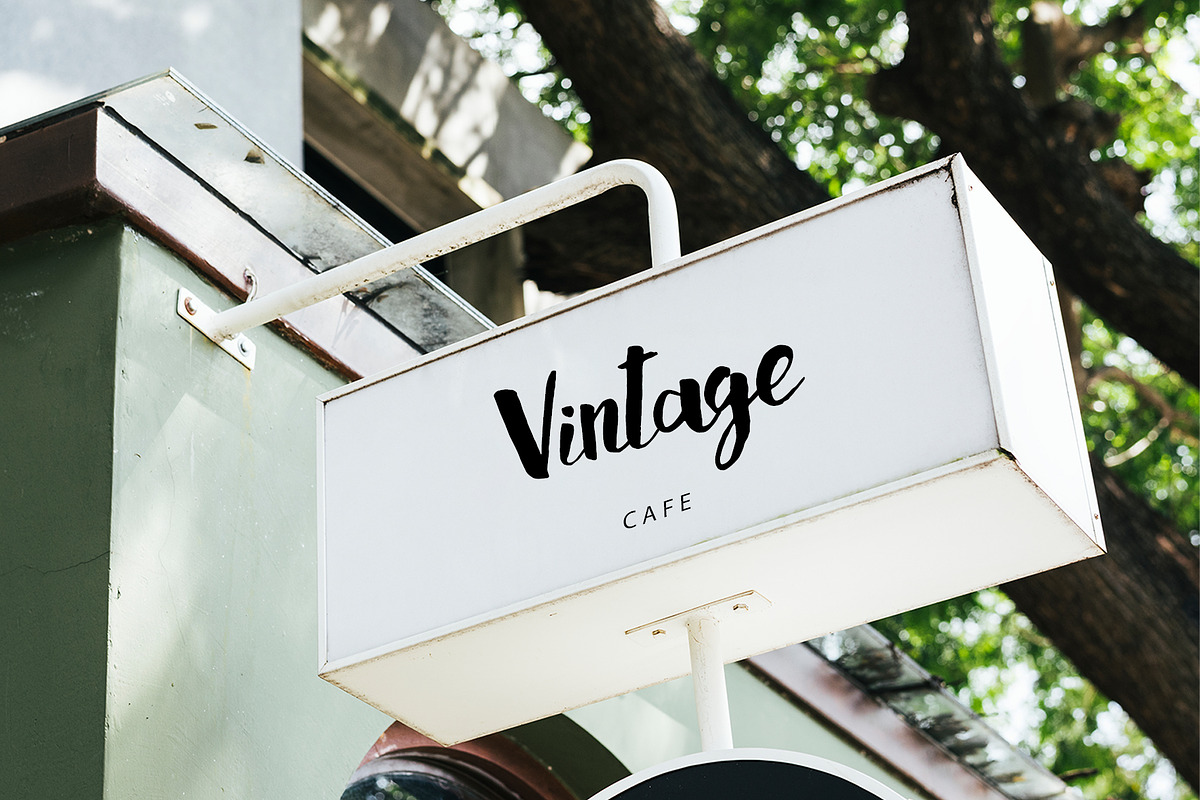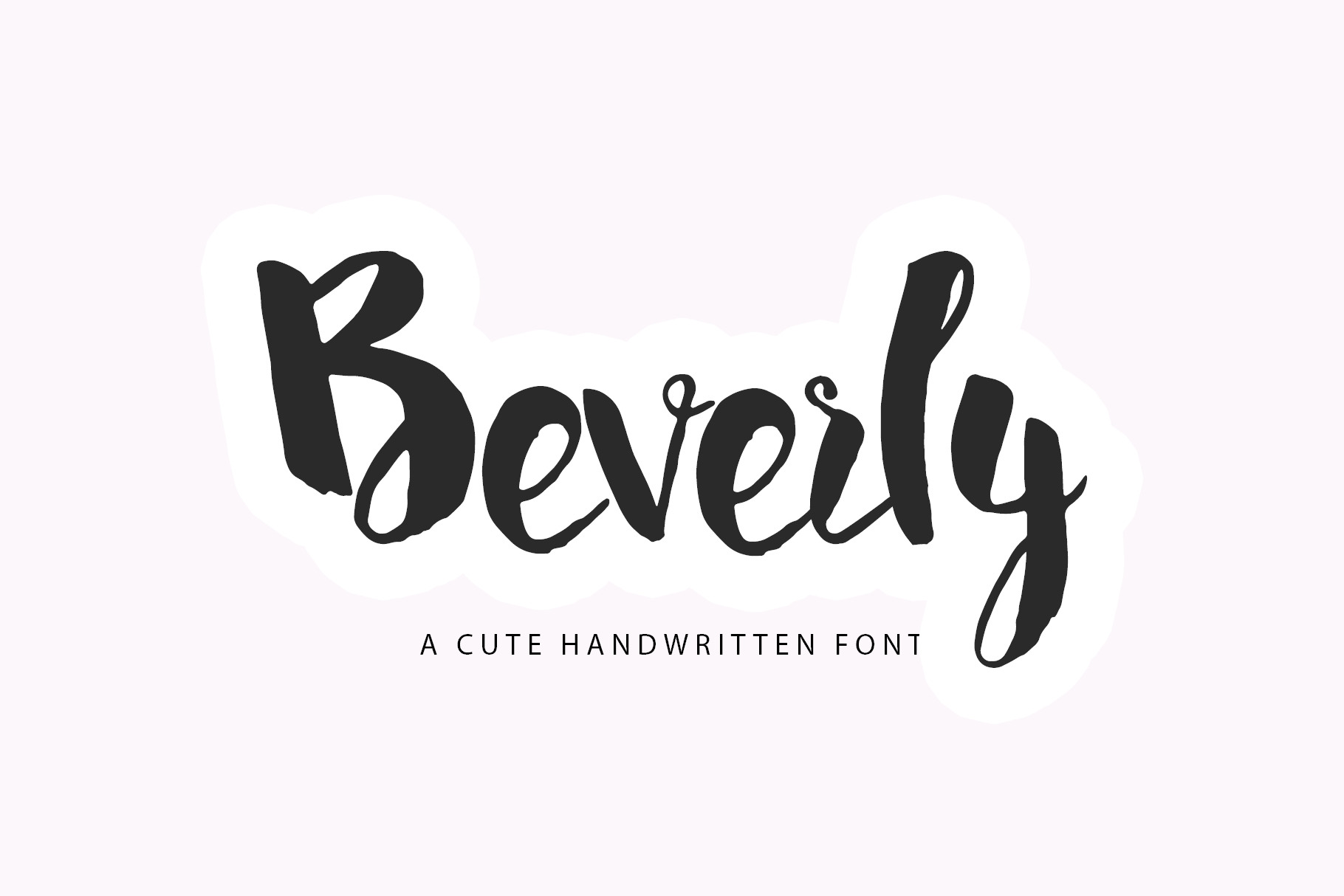
Beverly handwritten font
This is a wonderful font drawn by hand and with love! Beverly can be used for fashion, Invitations, business cards, design and much more
Many updates
- Multilingual Letters
- Fixed some letters
- Revised and redesigned spaces and distance tracking
- Fixed various minor bugs
- In General, the font is pleasant to the eye and easier to read!)